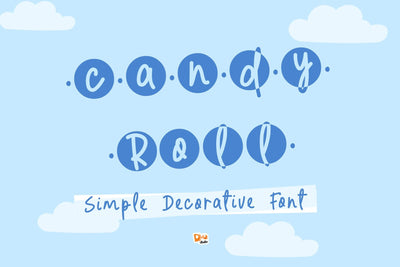
Candy Roll
Candy Roll – Simple Decorative Font
Candy Roll is a sweet and playful decorative font with a clean, rounded style that adds a dash of charm to any design. Inspired by candy wrappers and childhood treats, this font is both fun and easy to read—perfect for projects that call for simplicity with personality. From packaging to party invites, Candy Roll makes everything a little more delightful.
Playful Decorative Style: Rounded, clean shapes with a touch of sugary sweetness.
Friendly & Approachable: Simple letterforms that remain fun and inviting.
All-Caps Format: Bold, bubbly uppercase letters perfect for headlines and logos.
Ideal For: Candy packaging, children’s products, birthday invitations, school projects, branding, and creative merch.